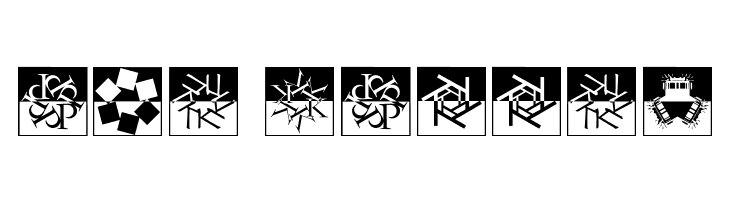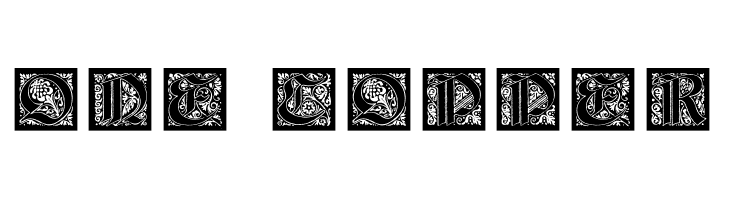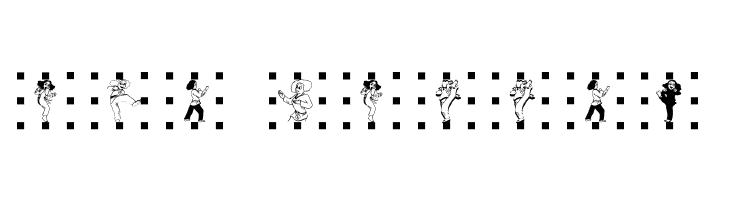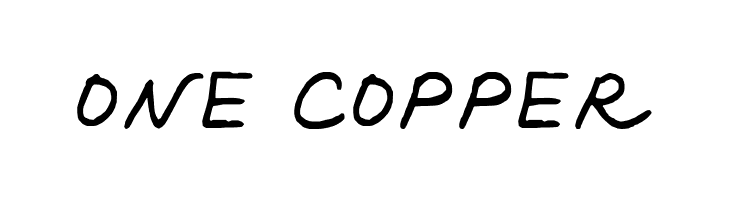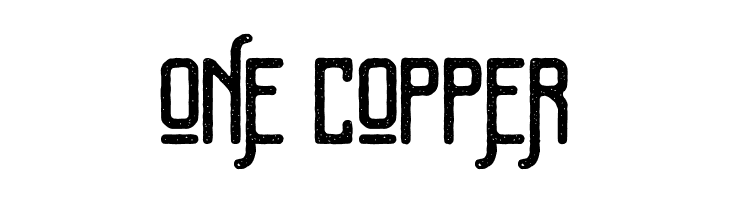
A modern, handwritten font with an oblique slant and clean lines.
A sleek, handwritten oblique font with thin, elongated characters.
A playful handwritten font with thin, consistent strokes and a casual style.
A playful, modern handwritten font with a semi-bold, oblique style.
A clean, minimalist handwritten font with a light and airy appearance.
A sleek, semi-light oblique font with a modern and dynamic style.
A bold, playful font with eye-adorned uppercase letters and solid lowercase characters.
A bold, playful font with quirky eye motifs in uppercase letters.
An artistic and calligraphic font with elegant curves.
A cursive, handwritten-style font with flowing, artistic strokes.
A bold, decorative font with ornate uppercase and traditional serif lowercase.
A playful font with animated uppercase letters and bold, clean lowercase characters.
An ornate, decorative typeface with intricate floral designs within each uppercase letter.
An ornate and decorative font with intricate, vintage-style embellishments.
A bold, geometric font with a 3D effect, perfect for modern and futuristic designs.
A decorative set of intricate, kaleidoscope-inspired geometric symbols.
Ornamental geometric display font with kaleidoscopic motifs.
A collection of decorative symbols with intricate, kaleidoscopic designs.
Intricate, kaleidoscope-like symbols with geometric patterns.
A decorative collection of geometric and abstract symbols with a kaleidoscopic effect.
An ornate, decorative font with floral and geometric patterns in each character.
A bold, distressed font with a rugged, vintage appearance.
An elegant script font with decorative uppercase and smooth, connected lowercase letters.
A bold, geometric font with a futuristic and modern style.
A decorative font with martial arts figures representing each character.
A bold, italic, and angular font with a futuristic style.
A pictorial silhouette font featuring animals and scenes as glyphs.
An artistic, calligraphic font with dynamic strokes and creative embellishments.
An artistic and expressive font with calligraphic elements.
A bold, dynamic font with thick strokes and a modern slant.
A fluid, handwritten-style font with a cursive appearance.
A modern, italic sans-serif font with clean lines and balanced proportions.
A collection of hand-drawn, whimsical faces and abstract shapes.